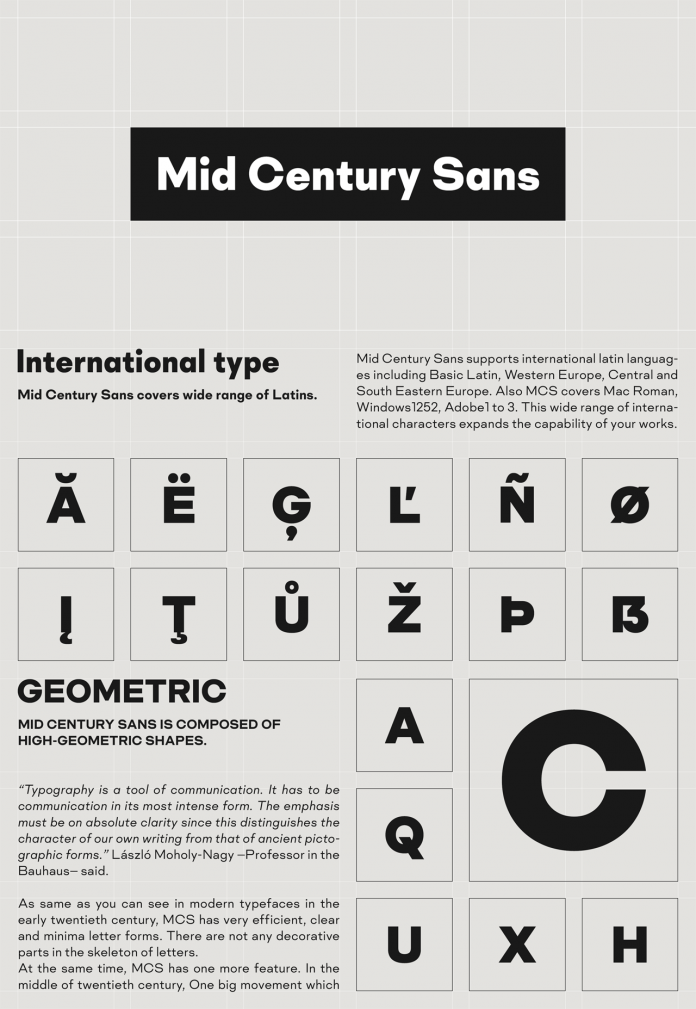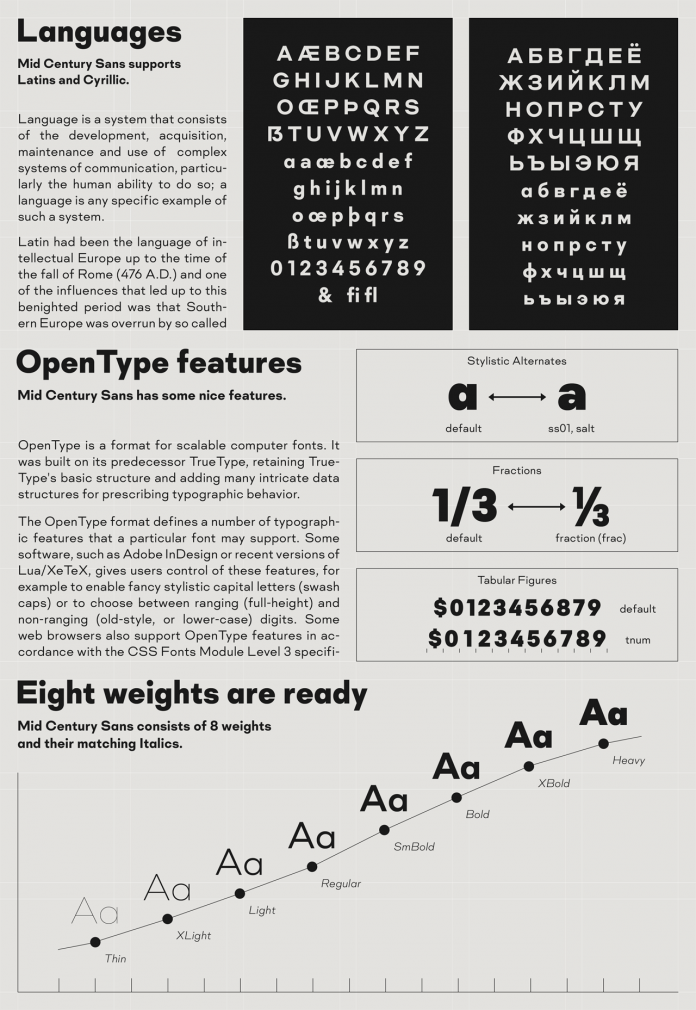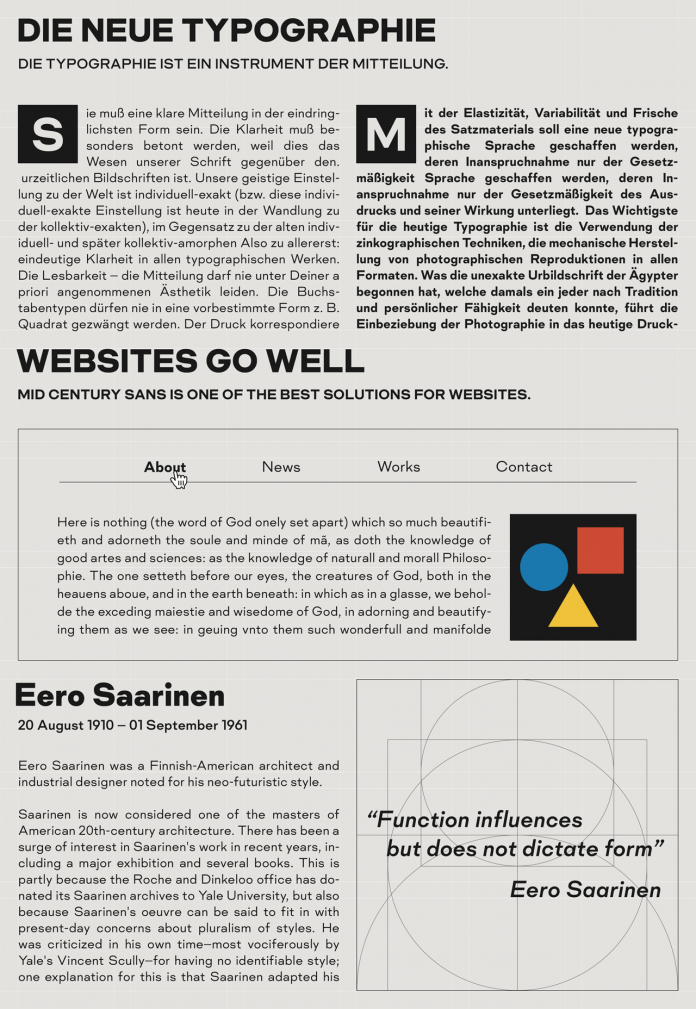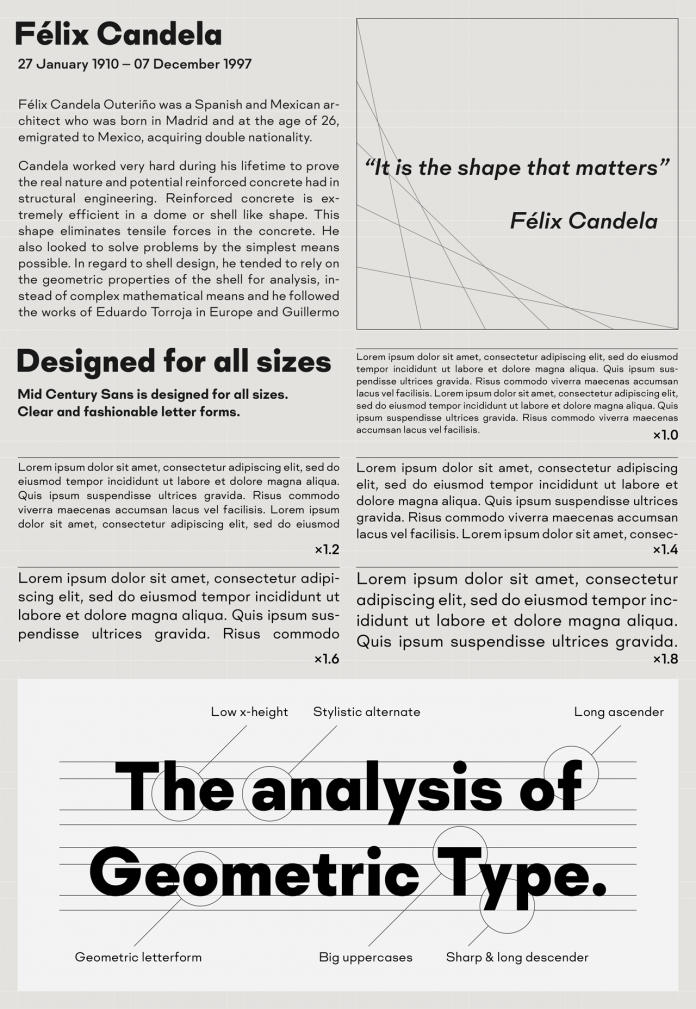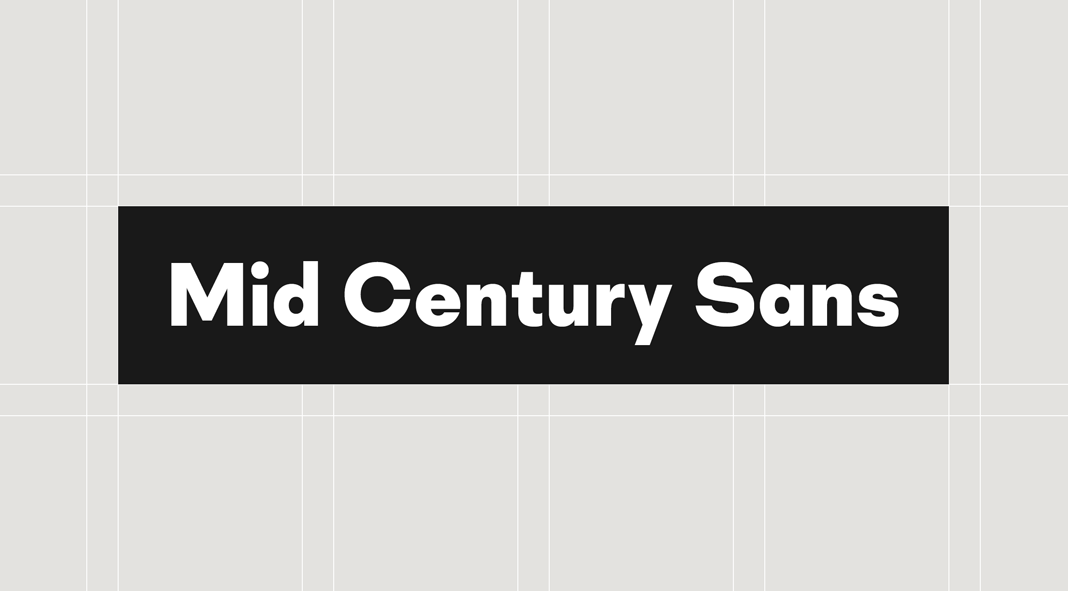
Mid Century Sans, a geometric sans-serif font family consisting of sixteen styles and published by foundry Dharma Type.
Designed by Ryoichi Tsunekawa and published by Dharma Type in 2020, the Mid Century Sans font family is based on a typeface that was composed using high-geometric shapes. The result is a font family with very efficient, clear, and minima letterforms. The basic letter form is characterized by geometric functionality known from the Bauhaus movement as well as the friendly appearance and human touch as we know it from mid-century designs.
Mid Century Sans font family from Dharma Type.
Mid-Century Sans font family from Dharma Type.